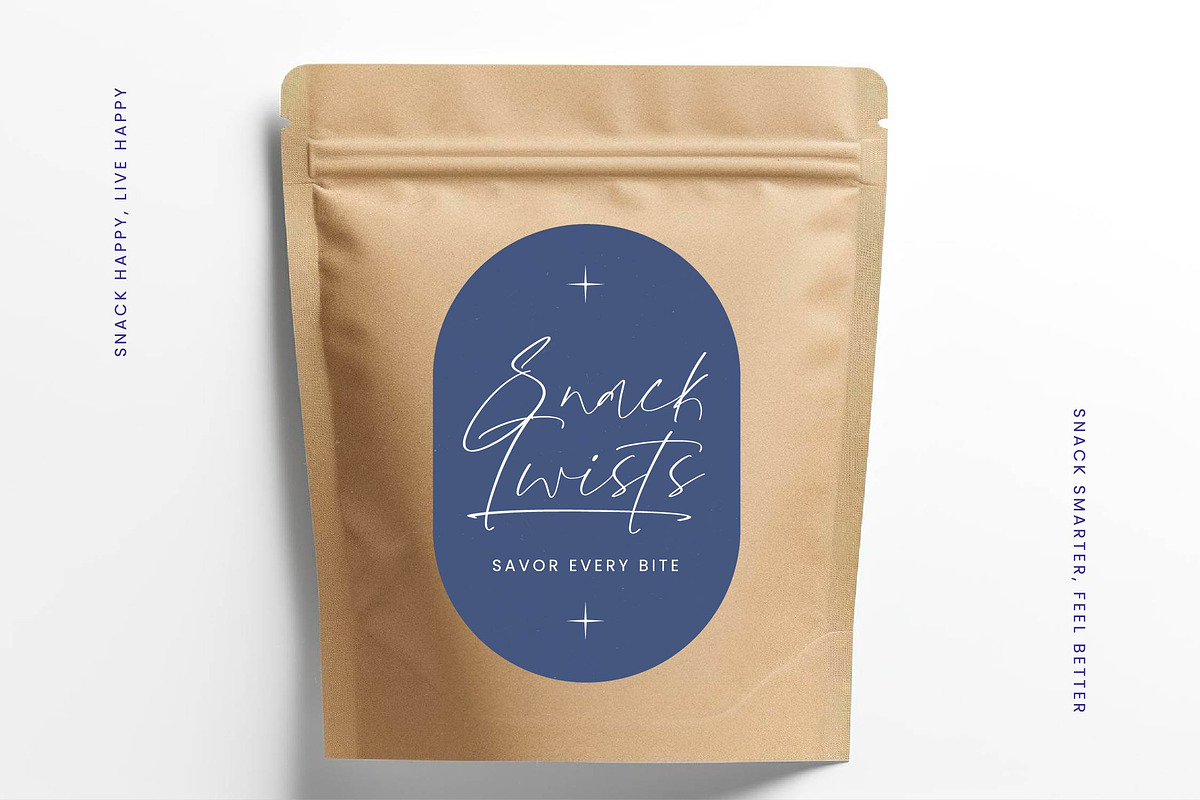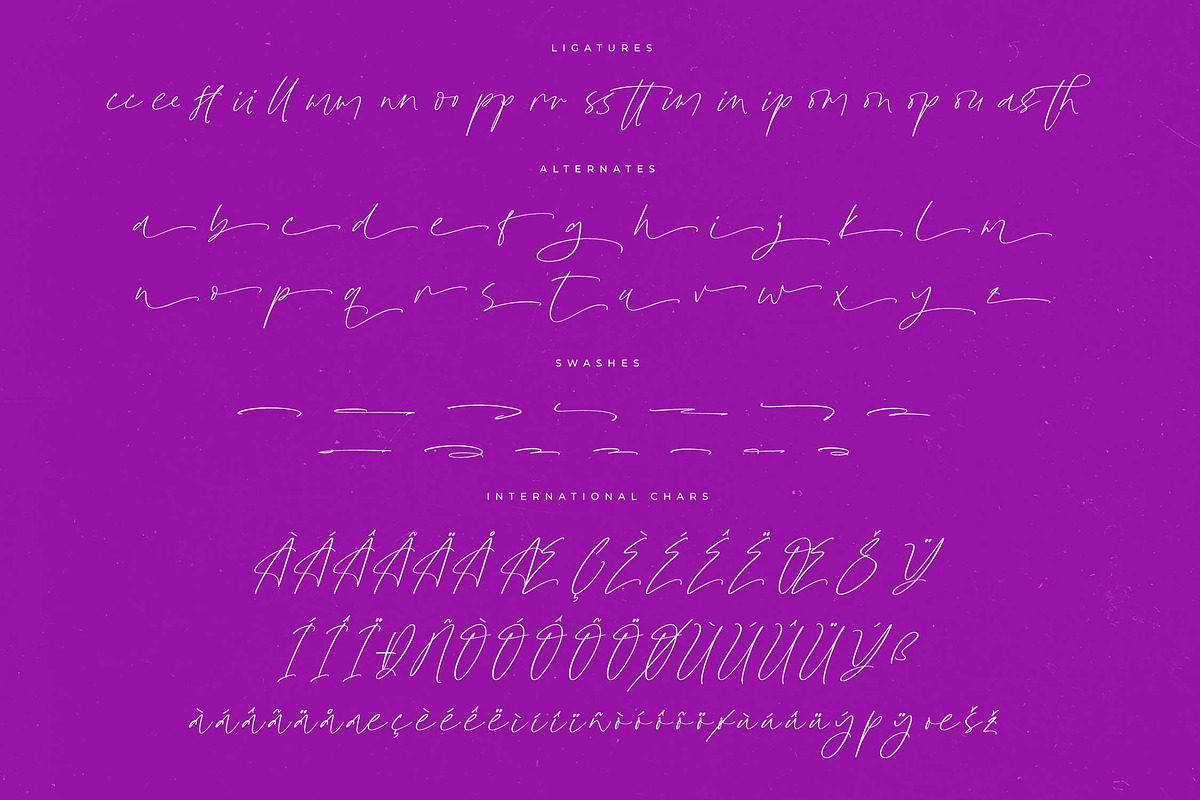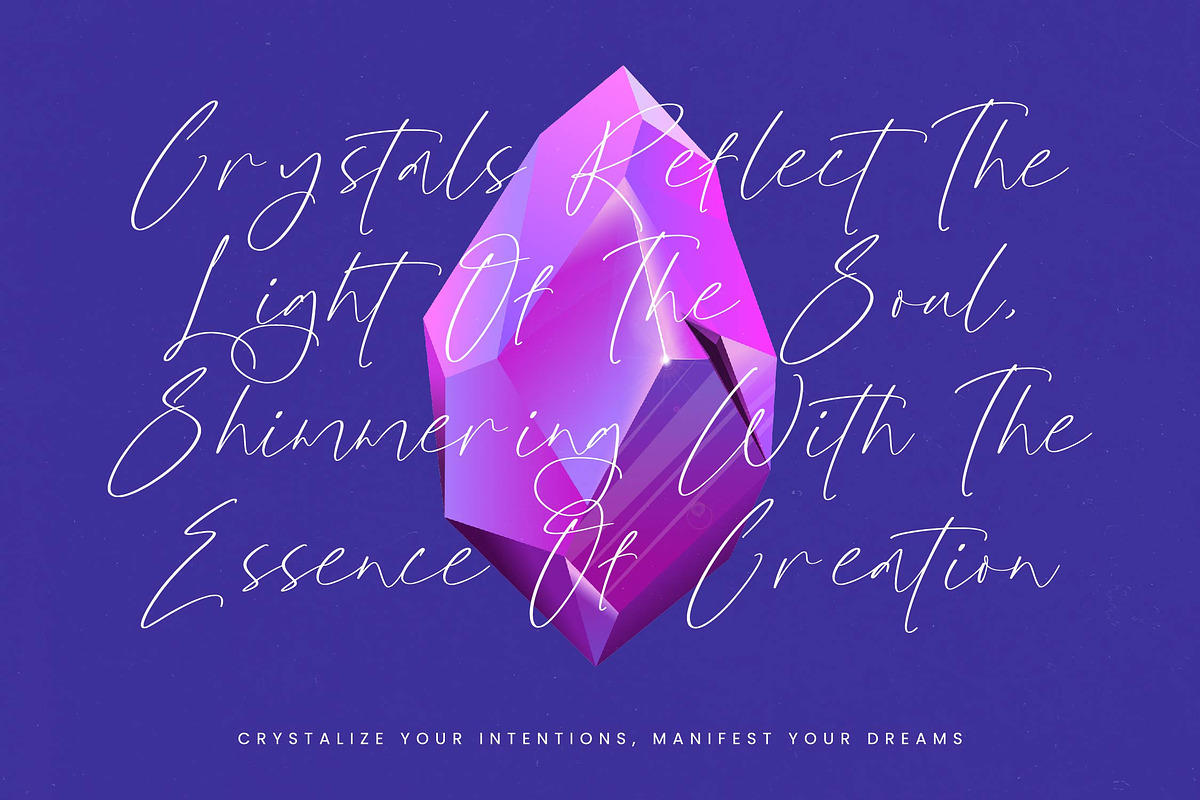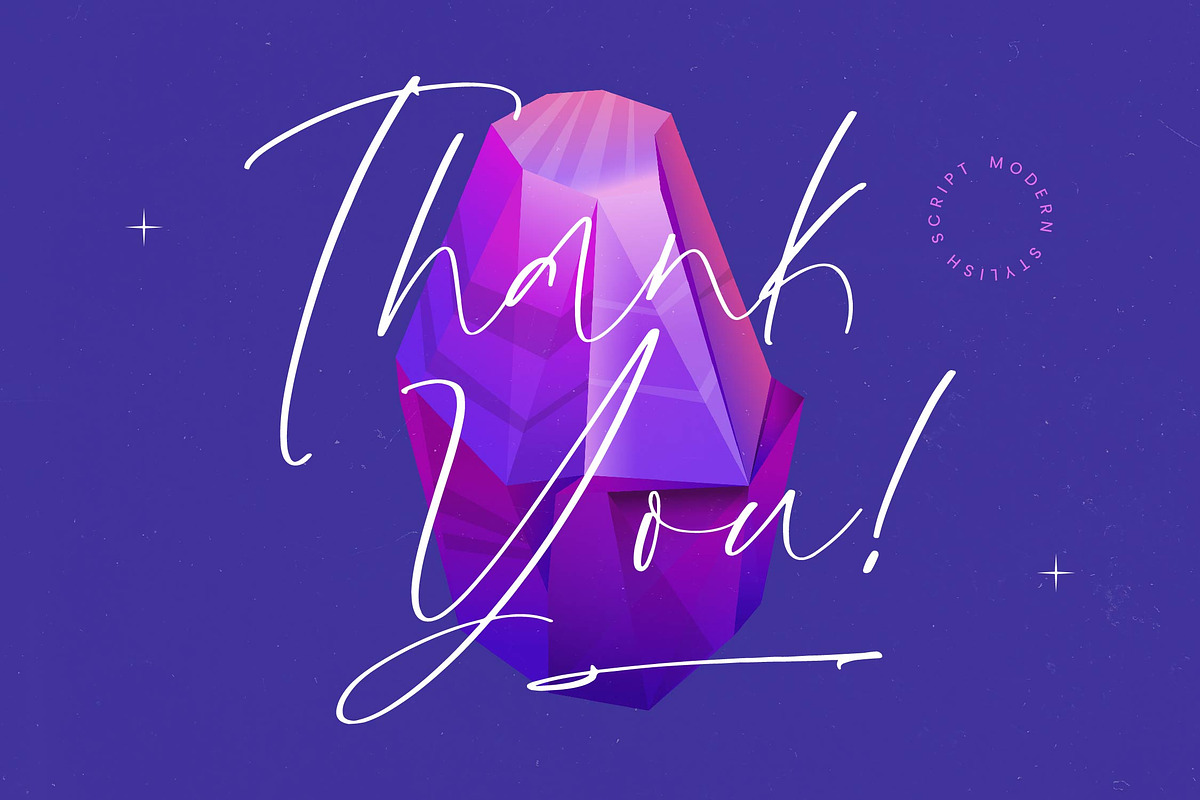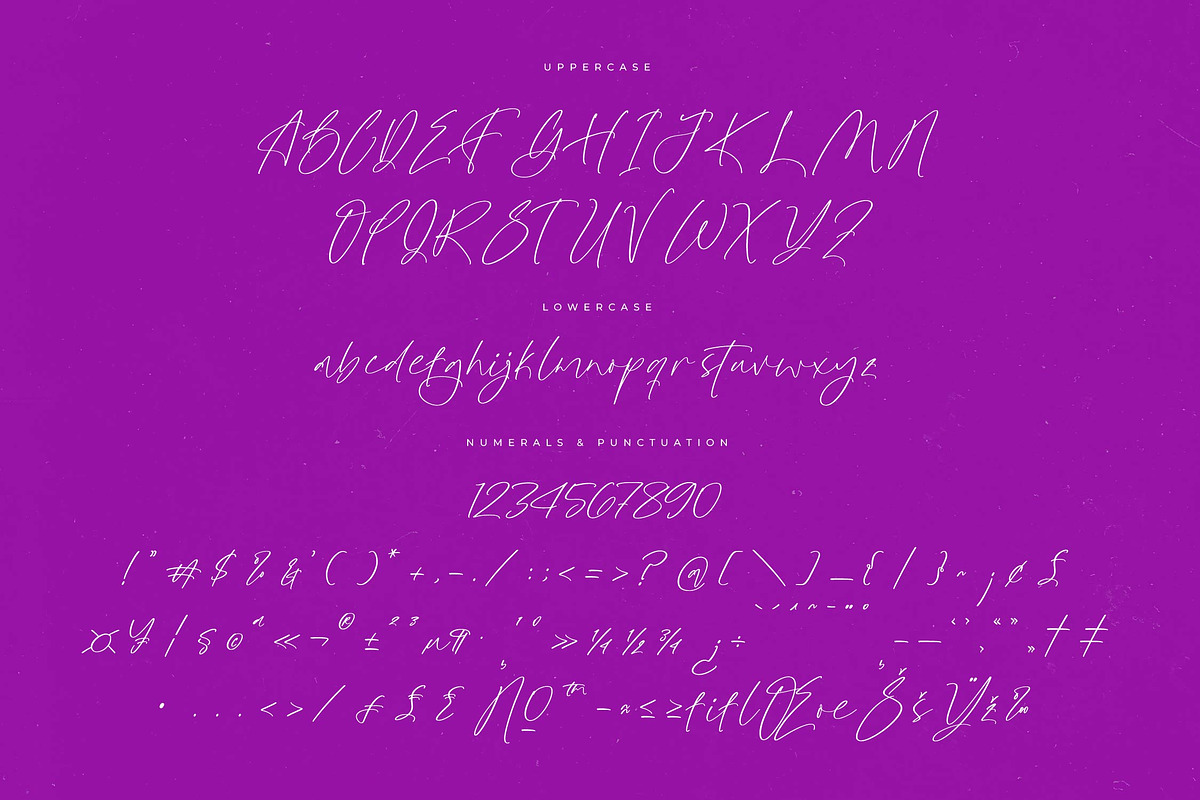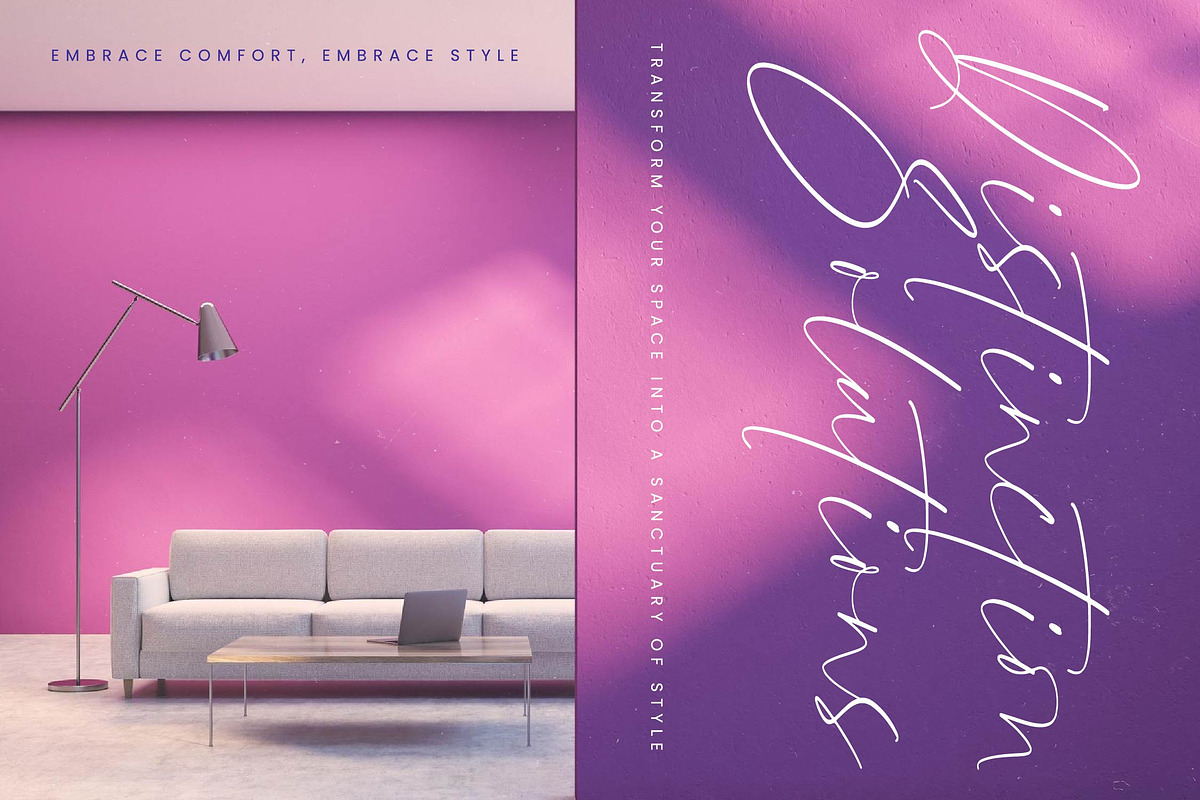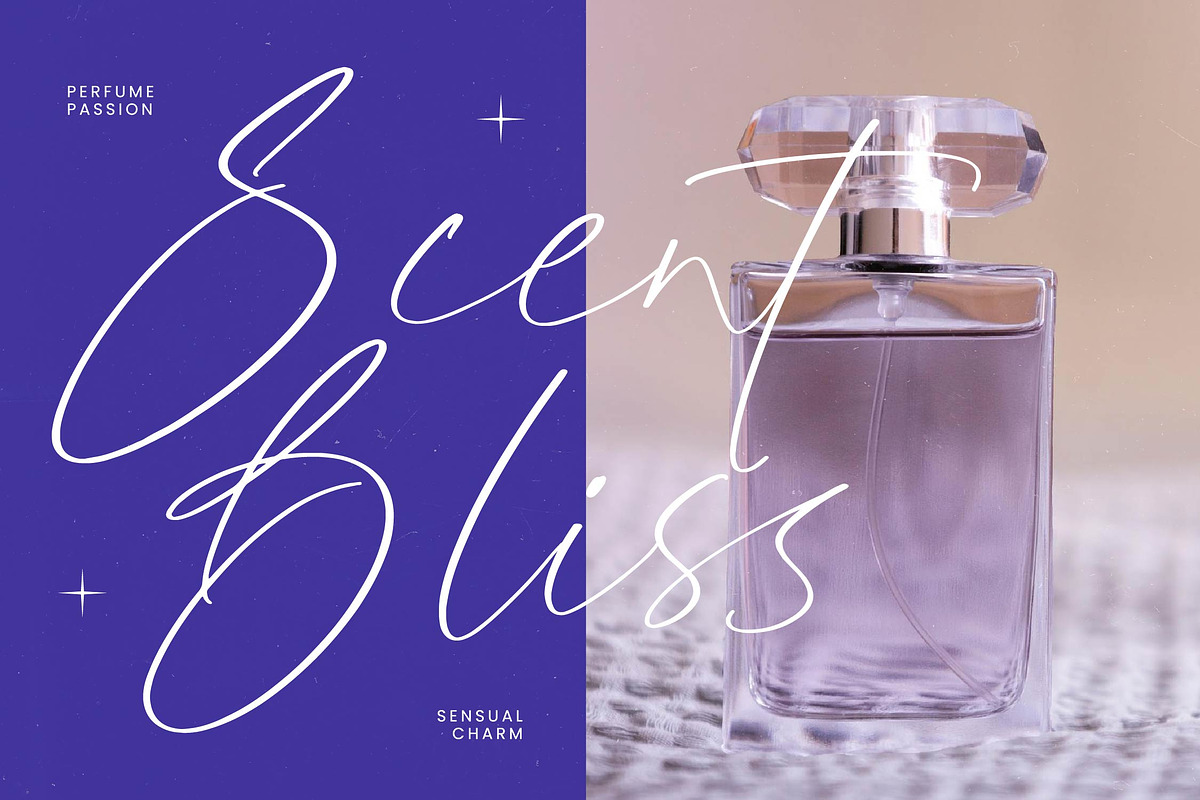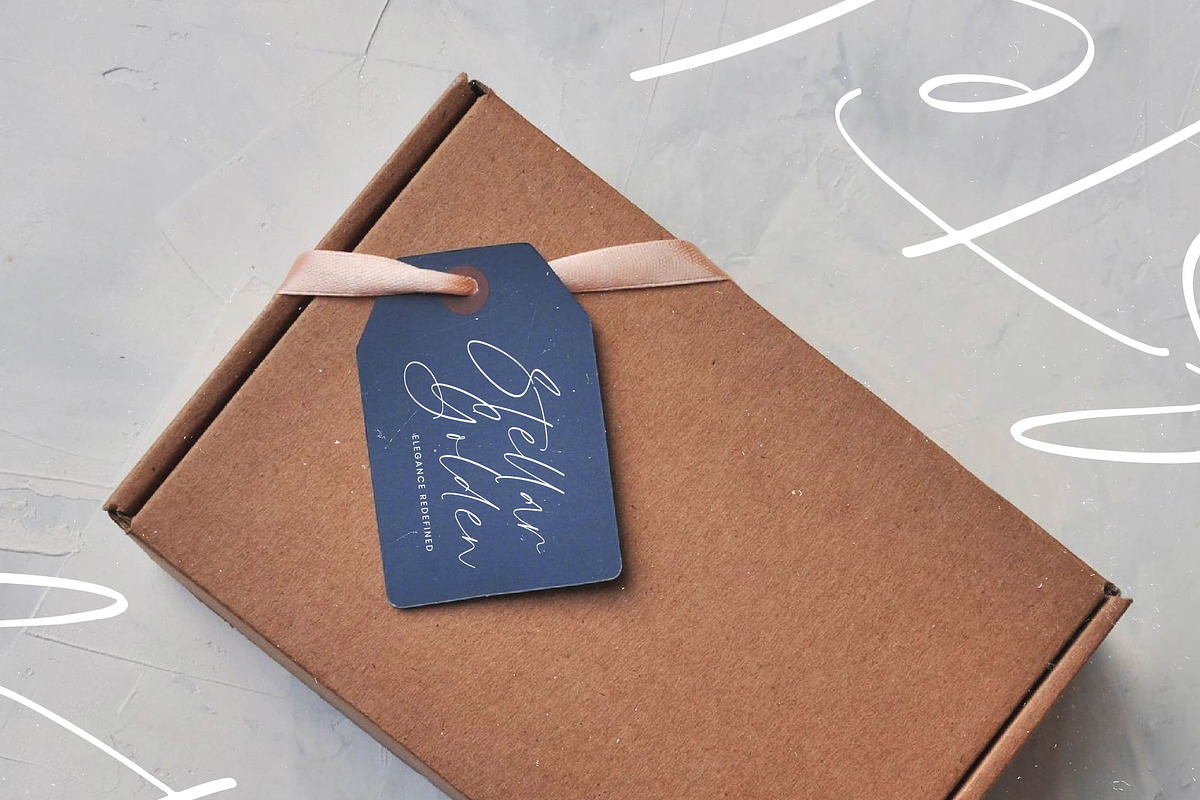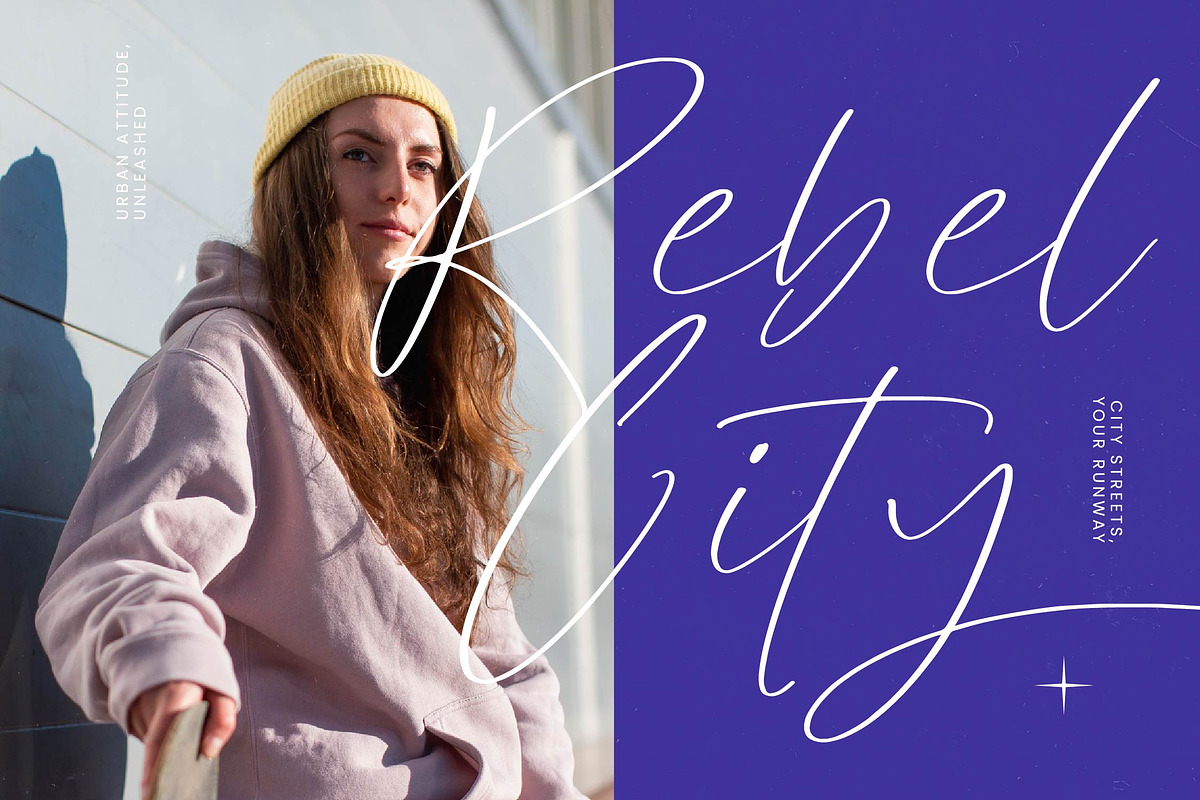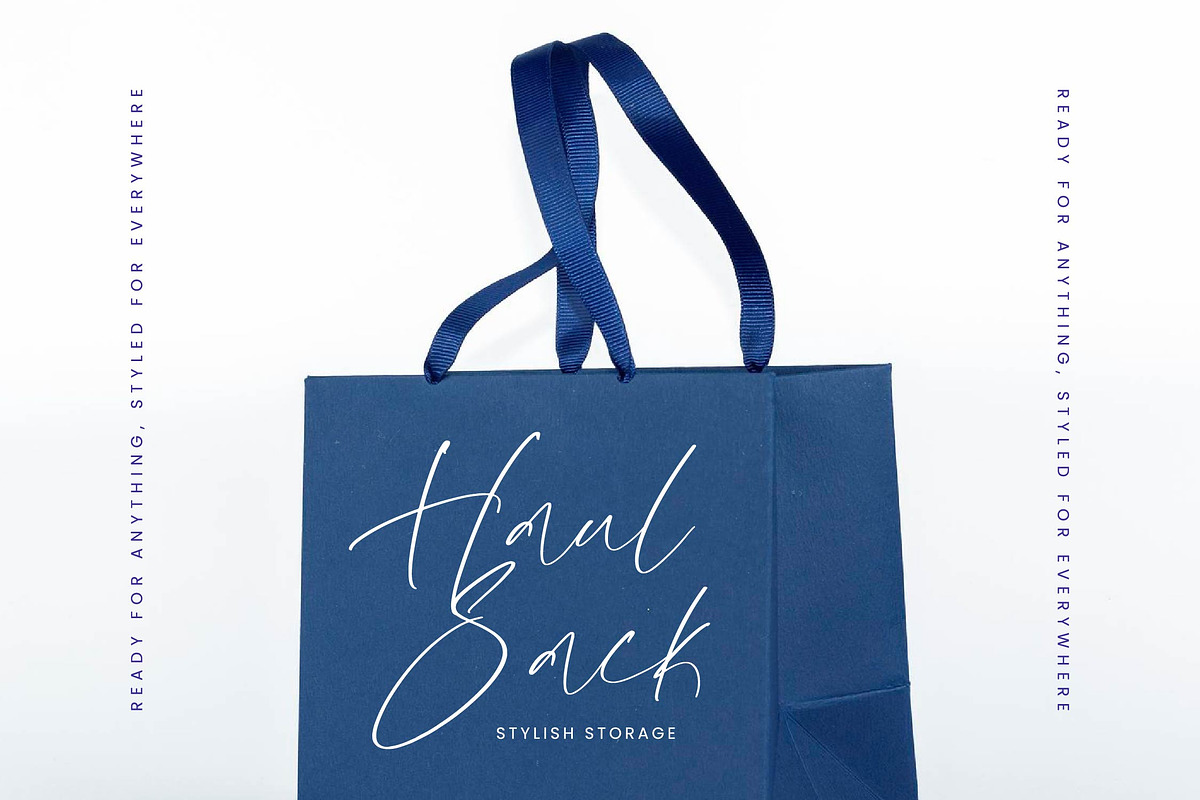
Glistening Silent Modern Stylish
Glistening Silent – Modern Stylish Script , from Letterena, is a Luxury Script font, suitable for any projects such as: logos, branding projects, homeware designs, product packaging, mugs, quotes, posters, shopping bags, t-shirts, book covers, name card, invitation cards, greeting cards, label, photography, watermark, special events, and all your other luxury and beautiful projects that need a Luxury Script taste.